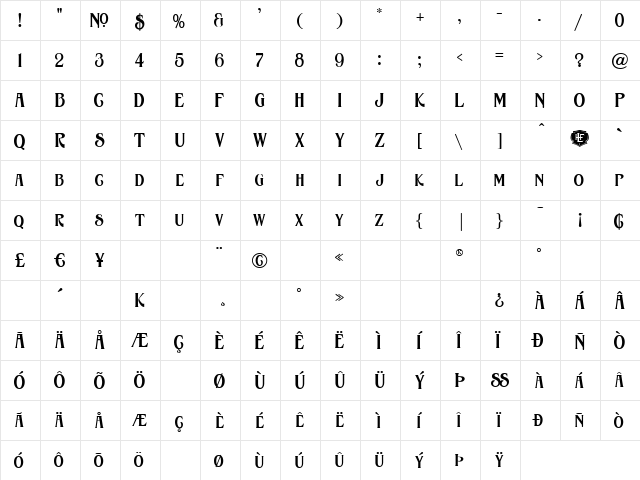
LHF Havana REG Regular
Design Context for LHF Havana REG Typeface
LHF Havana REG takes a measured approach to typography — its balanced proportions and neutral character make it a reliable workhorse for both digital and print work.